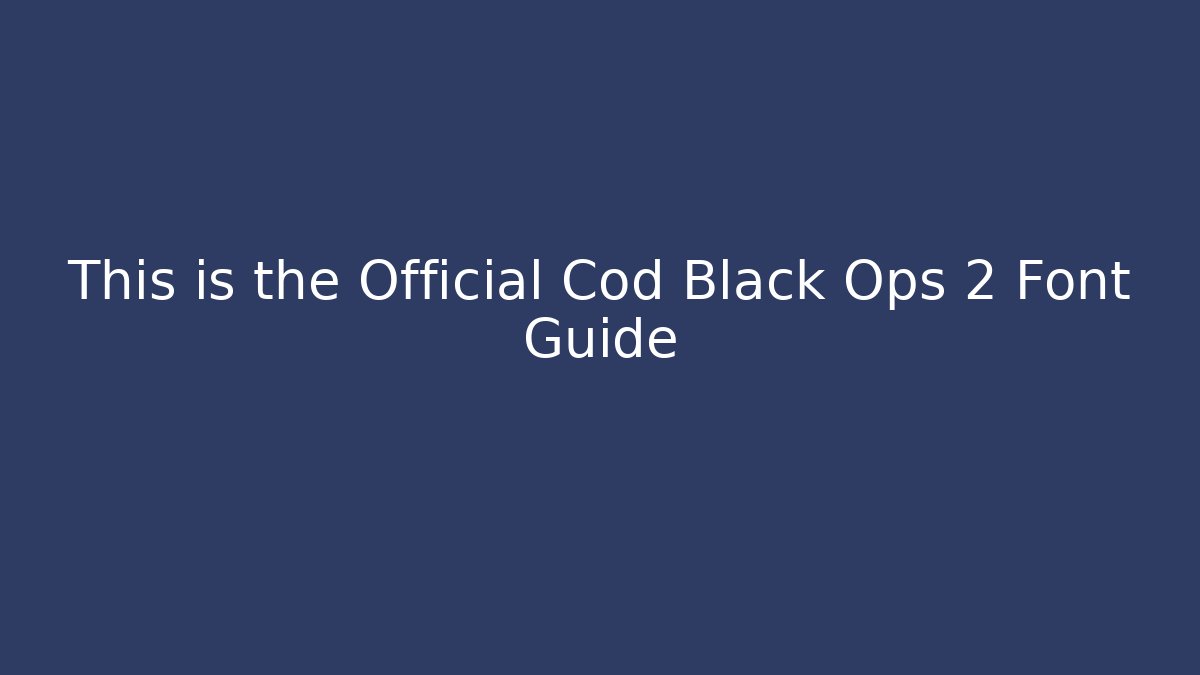
Why this title is trending with Black Ops 2 creators
Streamers and clip makers revisit classic branding. This is the Official Cod Black Ops 2 Font Guide is designed for teams and logos. Modern recreations and legacy style guides rely on its clarity.
This guide explains the typeface and spacing
This is the Official Cod Black Ops 2 Font Guide is/are a reference for the stylized sans used in logos, scorebars, and killfeed. Studies indicate consistent type strengthens team identity. Variants include outline and bold styles for versatile branding.
Use exact fonts for authentic tournament visuals
Matching stroke angles and tight letterforms keeps your panels recognizable. Research shows uniform type across panels builds viewer trust quickly. Apply tracking and sizing rules for readable overlays.
Keep your type exact and your panels clean.
Can this style work in modern layouts?
Yes, clean lines fit contemporary overlays and shorts. Adjust contrast for smaller screens and mobile discovery.